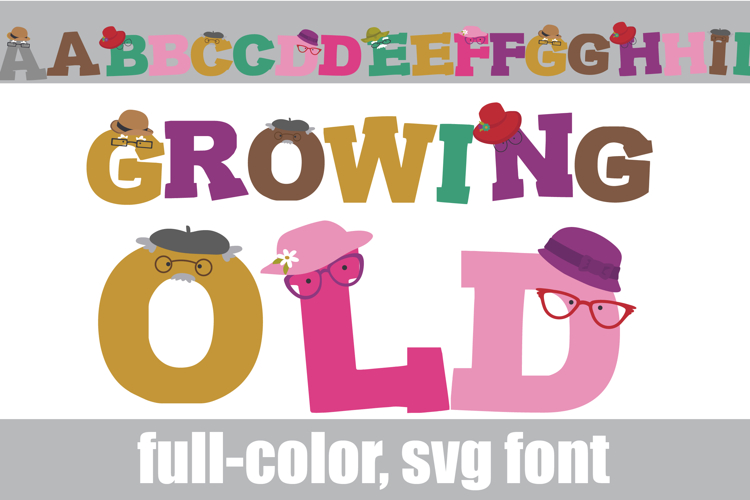
Growing Old Color Font
This hand-crafted font is a full-color font featuring old-timey hats on each serif letter. There is an alt case of each letter with a different color combination.